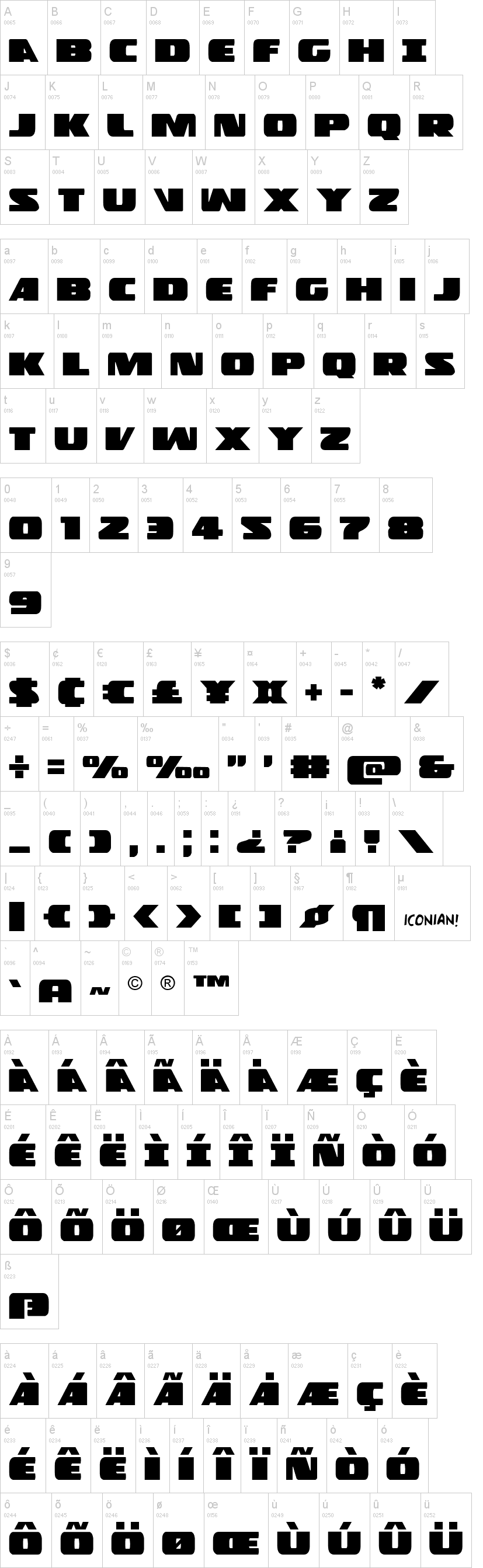
policecruiserital.ttfpolicecruiserleft.ttfpolicecruiserlas.ttfpolicecruiserlasital.ttfpolicecruisergrad.ttfpolicecruisergradital.ttfpolicecruiserout.ttfpolicecruiseroutital.ttfpolicecruiser3d.ttfpolicecruiser3dital.ttfpolicecruisercond.ttfpolicecruiserexpandital.ttfNote of the authorA bold, thick title/display font. Comes with a full Letter character set.